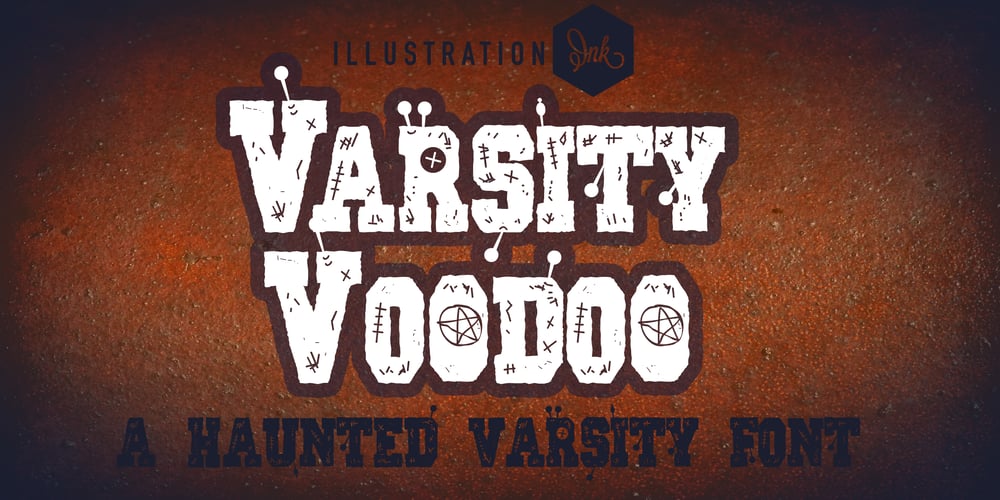
ZP Varsity Voodoo Font Family was designed by Illustration Ink and published by Illustration Ink. ZP Varsity Voodoo contains 1 styles and family package options. This letterman style font is very textured and very grungy and sporting voodoo pins and stitching througout.A hand-crafted font is a font that is designed to look like it was written by hand. It is often used for invitations, greeting cards, and other items. Handwritten fonts can be either formal or informal, and they can be used for a variety of purposes.Some of the characteristics of handwritten fonts include: The letters are not perfectly uniform in size or shape. There may be slight variations in the spacing between letters and words. The font may have a “wiggly” or “squiggly” appearance. The font may be difficult to read at small sizes. Handwritten fonts can be a great way to add a casual touch to your designs. They can also be used to create a sense of nostalgia or whimsy. However, it is important to choose a handwritten font that is appropriate for the project you are working on. A formal handwritten font may not be appropriate for a casual invitation, while an informal handwritten font may not be appropriate for a corporate document.